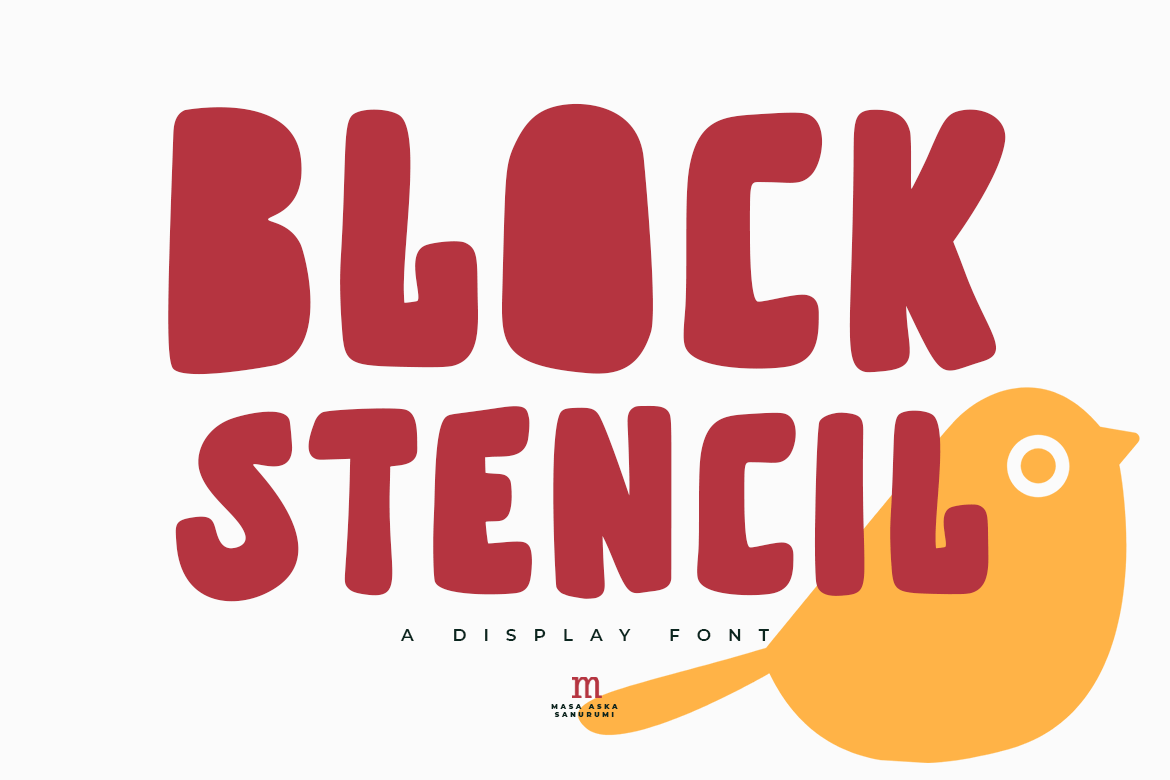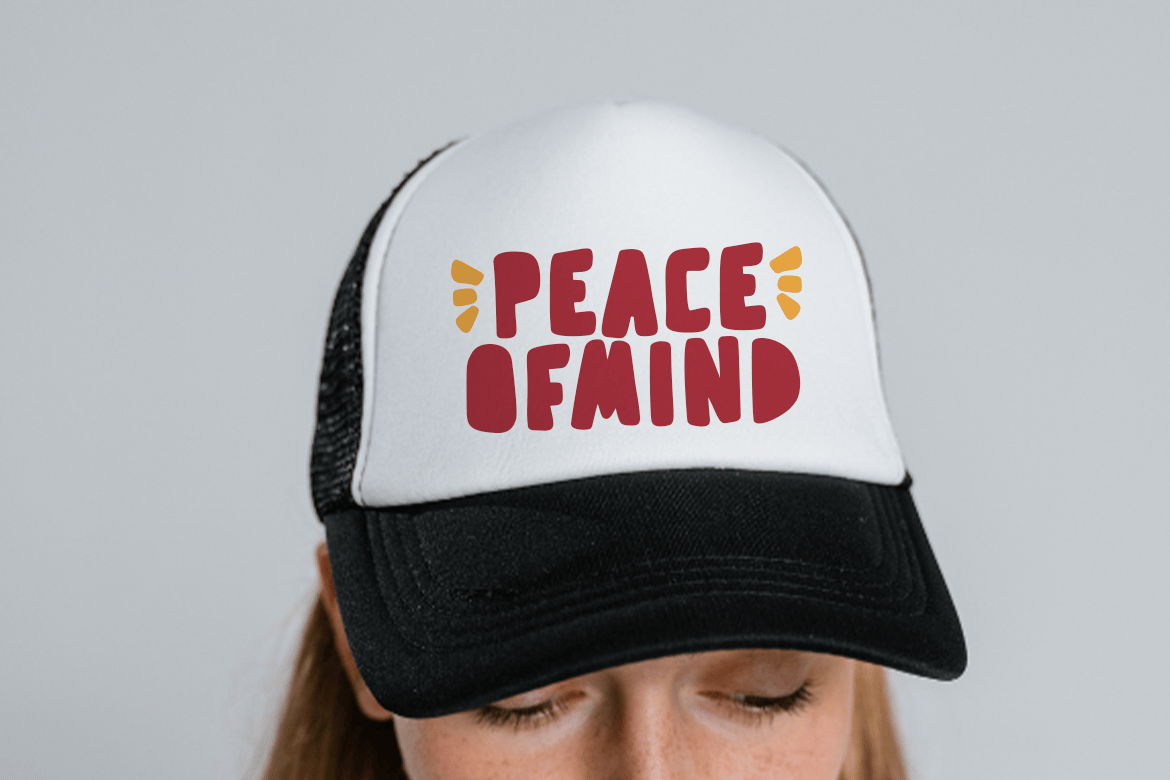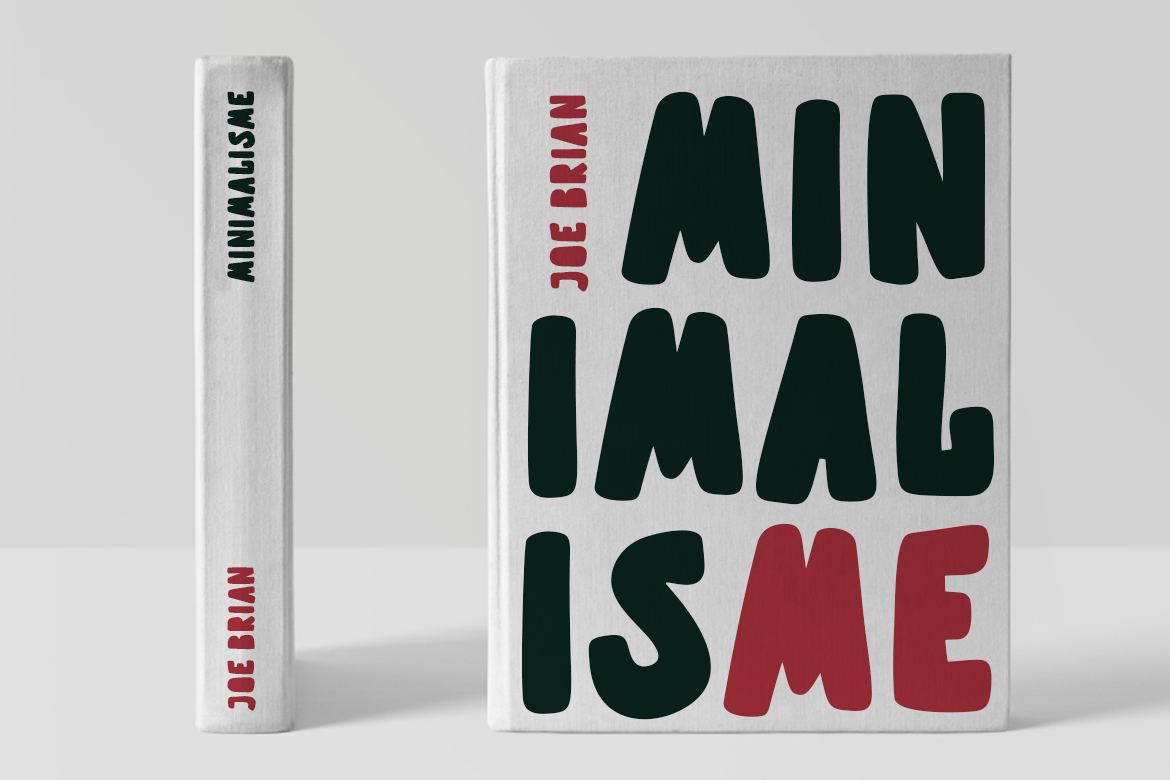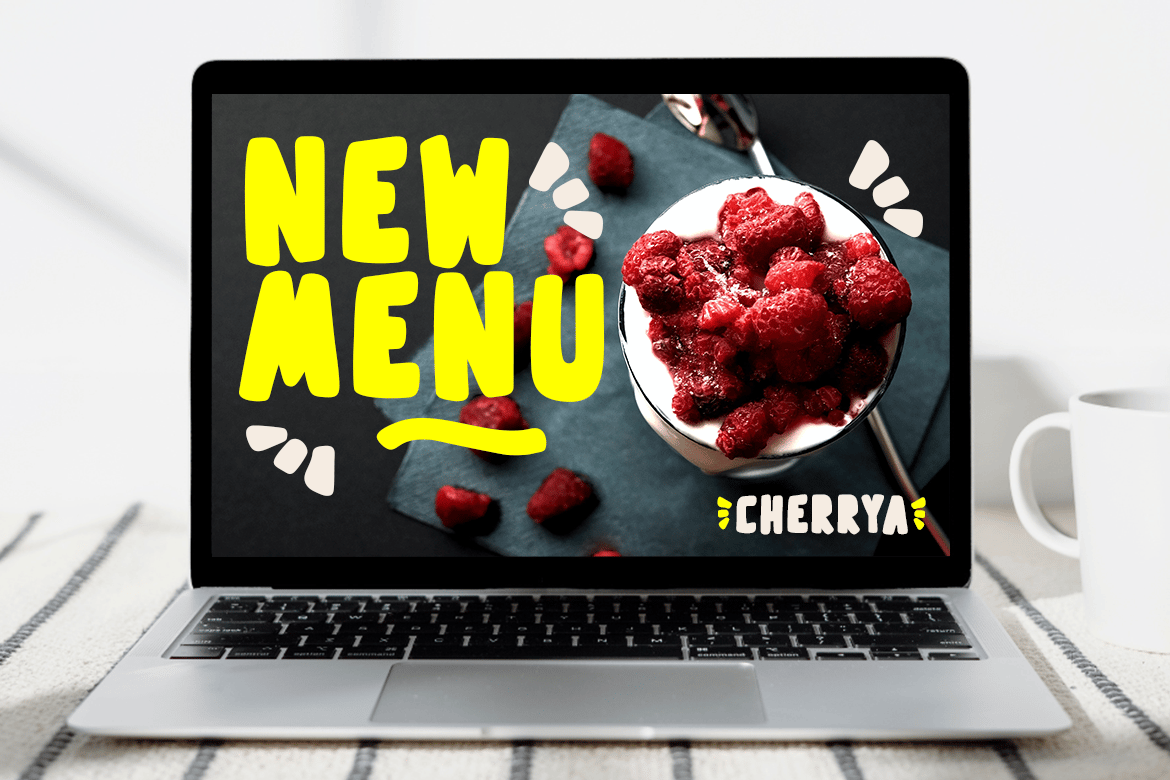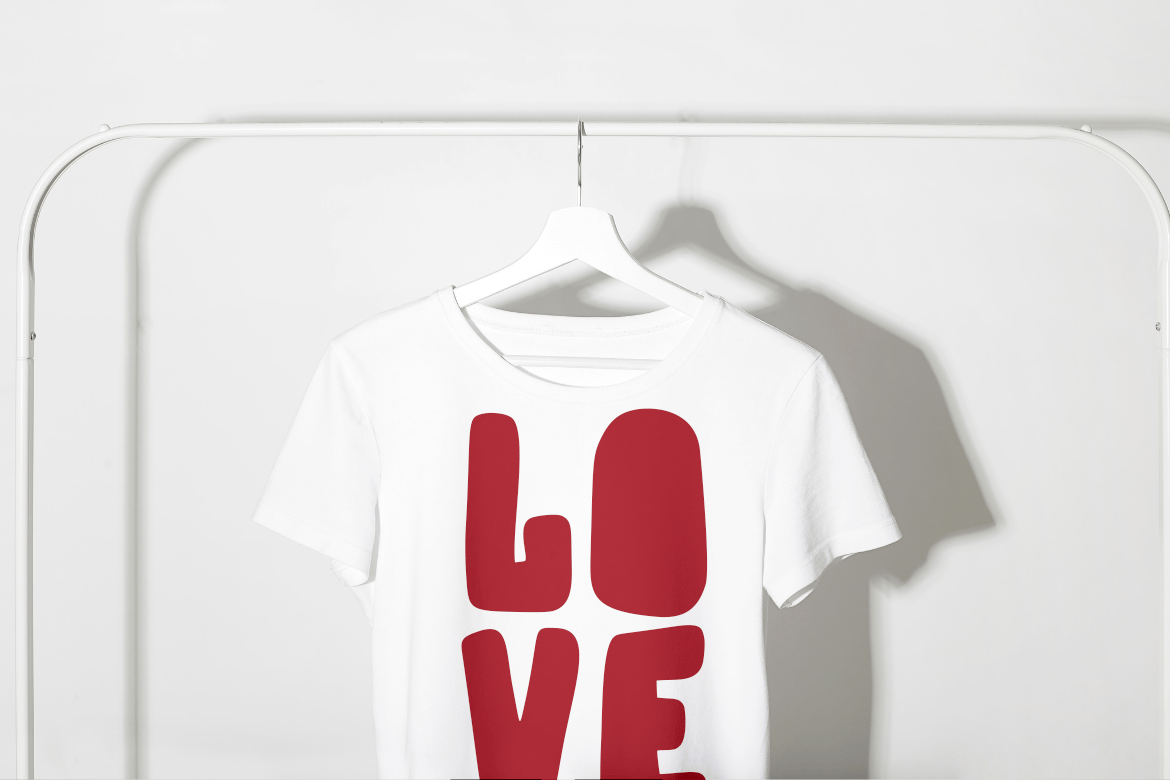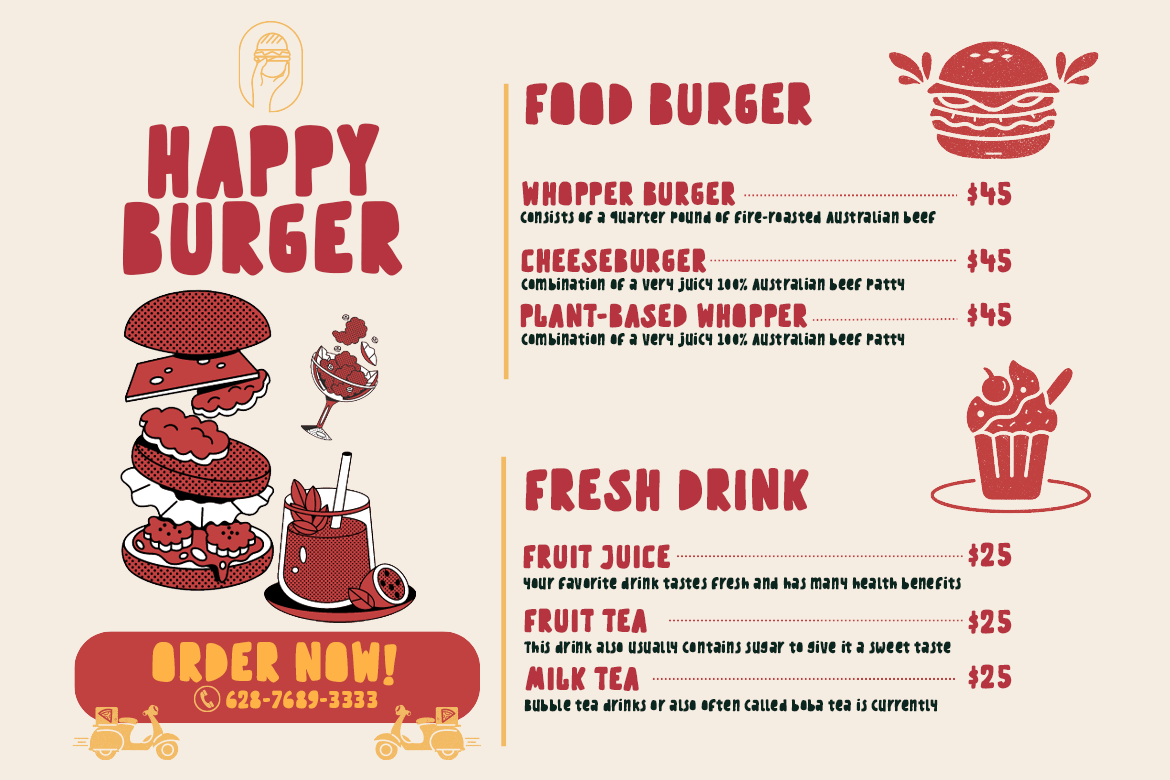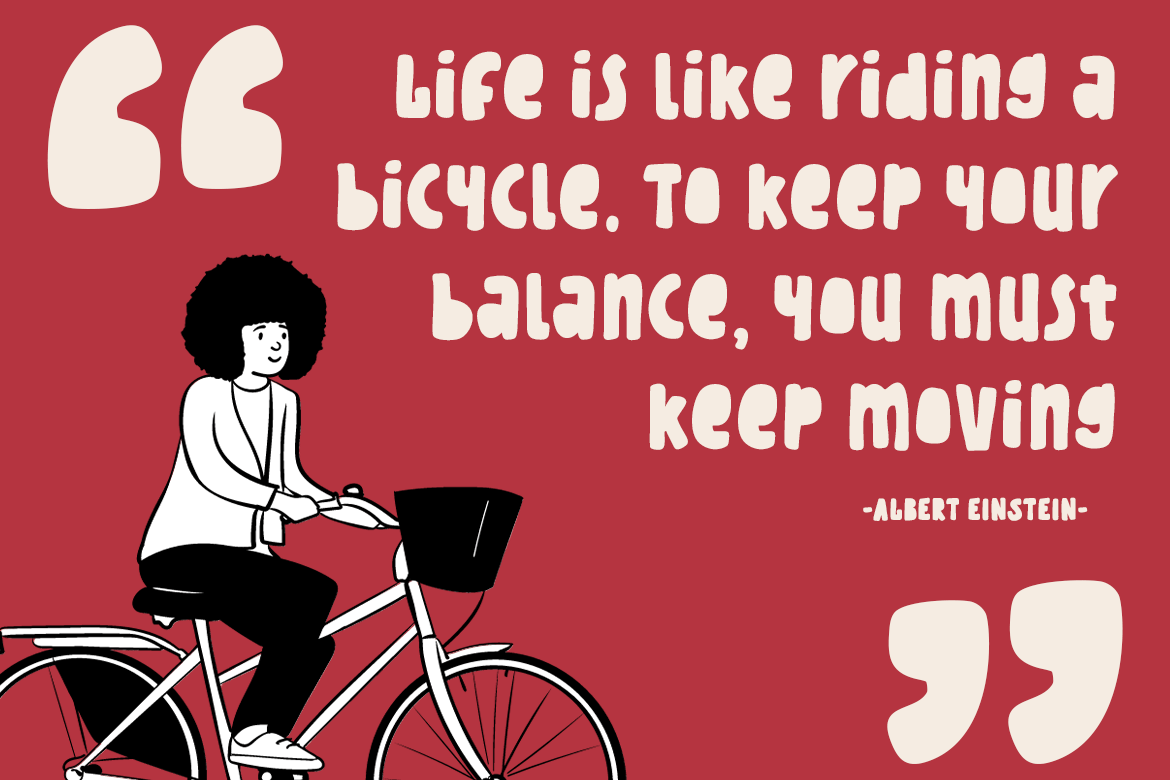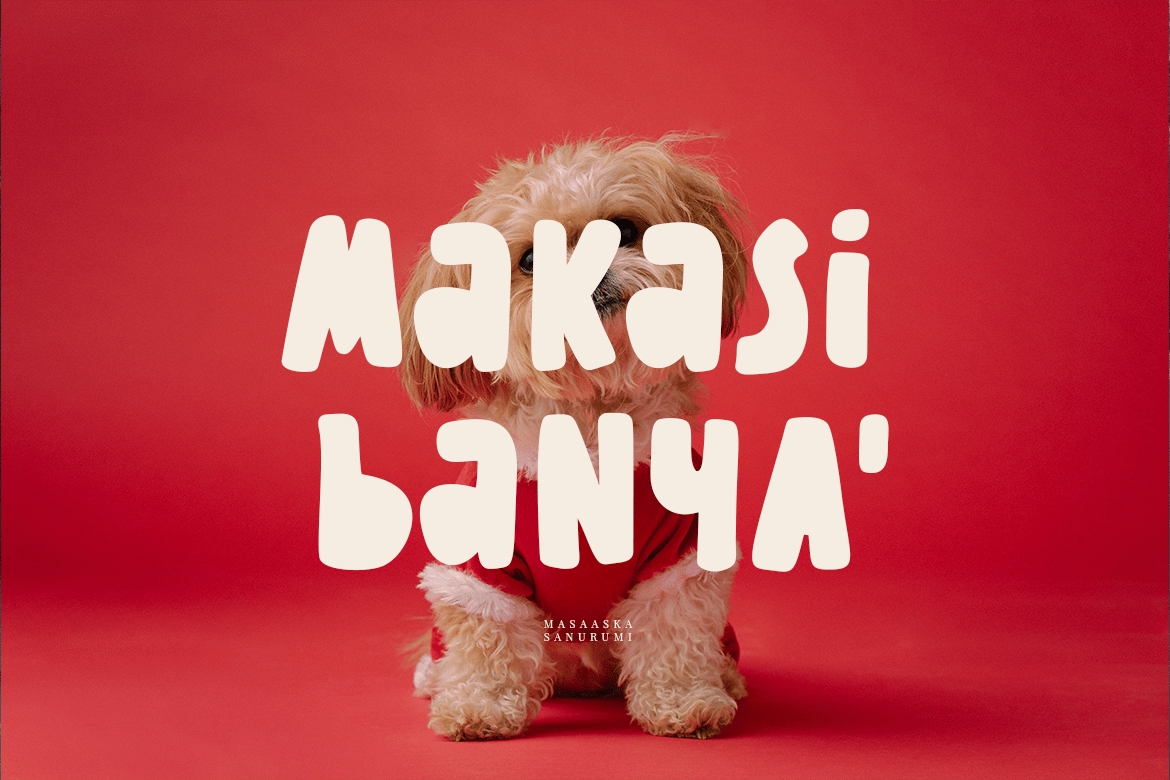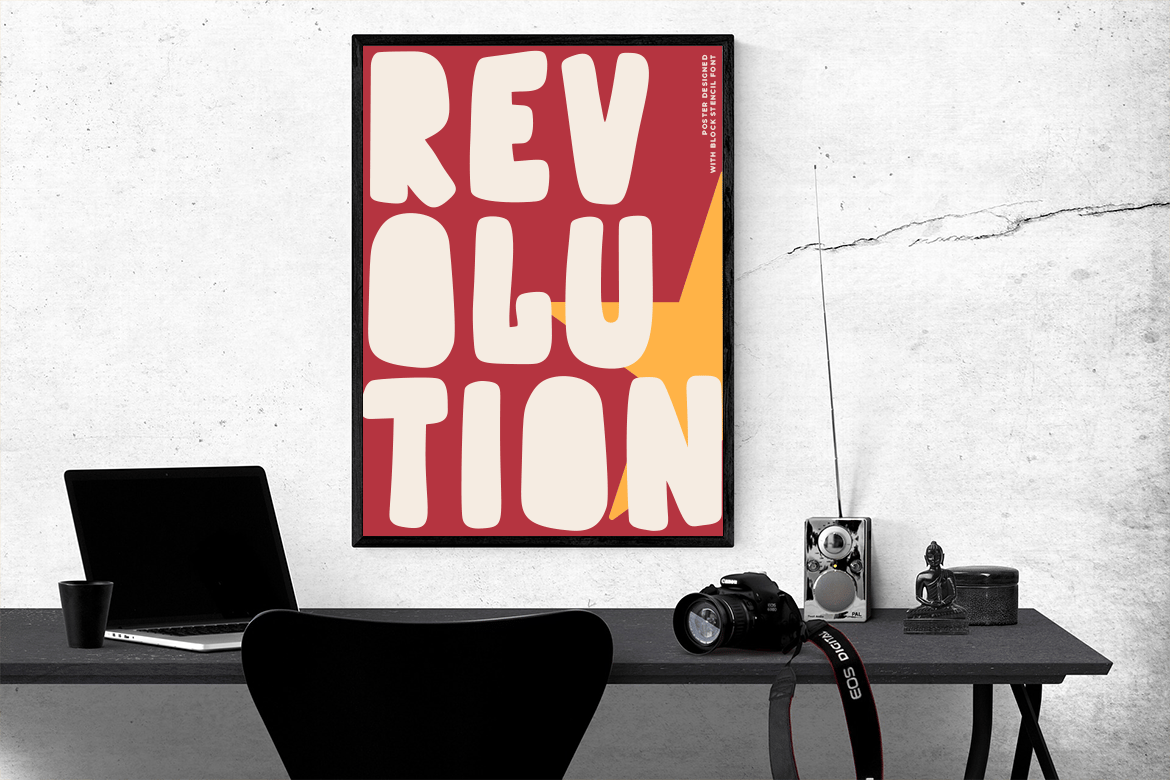
Block Stencil | A Display Font
Introducing, Block Stencil is a playful display font suitable for your design project needs, such as; birthday theme, social media posts, quotes, overlays on images, posters, print needs, website banners, and more.
- A set of uppercase and lowercase glyphs
- Number, symbol, and punctuation